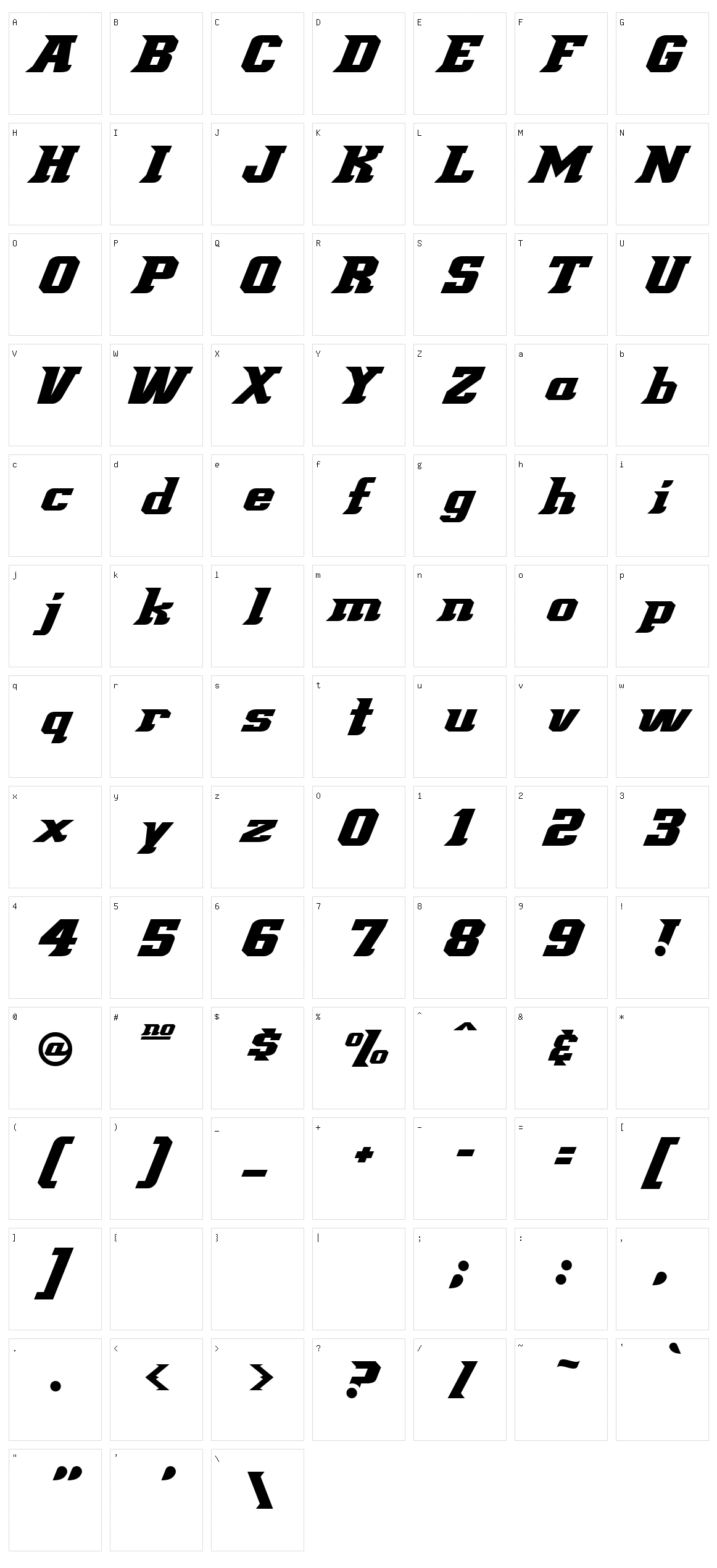
Demonized
Designed by: GreyWolf Webworks
"Demonized" version 2.00 is the 53rd free font from Rich Gast.
It was originally created on 01/20/01. (Version 1.00 - see below)
The character set includes:
Upper and lower case letters, numbers, international characters,
many extended characters and most punctuation. (The original version
contained only letters, numbers and limited punctuation, along with
2 Blue Demon logos)
Demonized is the freeware version of a font named "Blue Demon" that
I originally made for DePaul University. It's a long story, but I'll
give you the condensed version to explain why I am distributing an
improved version of the font for free.
Back in 1999, I was contacted by DePaul University to see what I
would charge them to make a true type font for them. I told them, as
you might expect, it would be $0.00, as are all of my fonts. They
were pleasantly shocked and took me up on my offer. Several months,
and many e-mails (some answered, some not) later, I finally was able
etc. In spite of repeated e-mail inquiries throughout 2000, I have
yet to ever receive a reply as to whether the font was acceptable.
No "Thanks, it's just what we wanted." No "Your font sucks, take a
hike bozo!" No nuthin'! I've been "Demonized" and now you can be too!
"Go [insert your college team here]!! Beat the Blue Demons!!"
Demonized Character Set